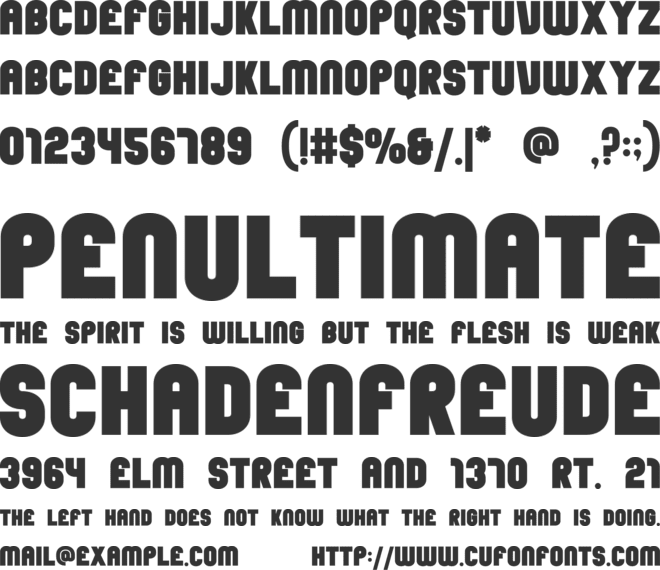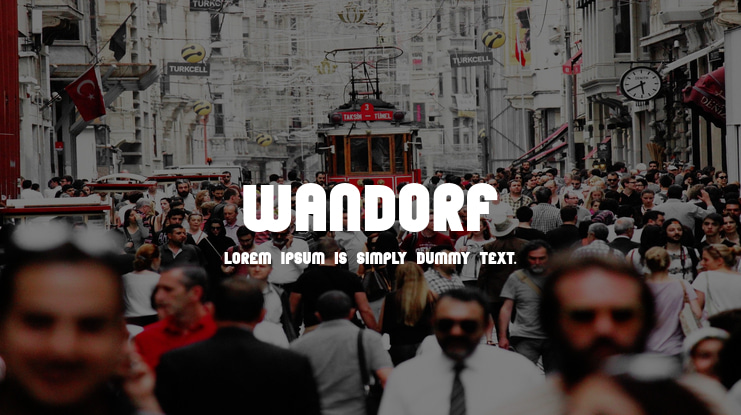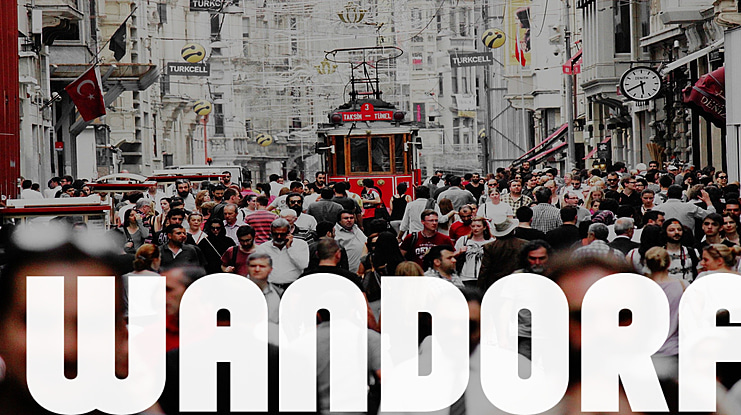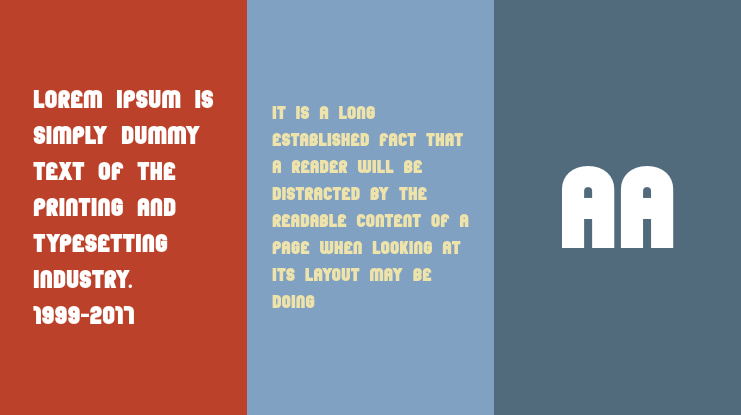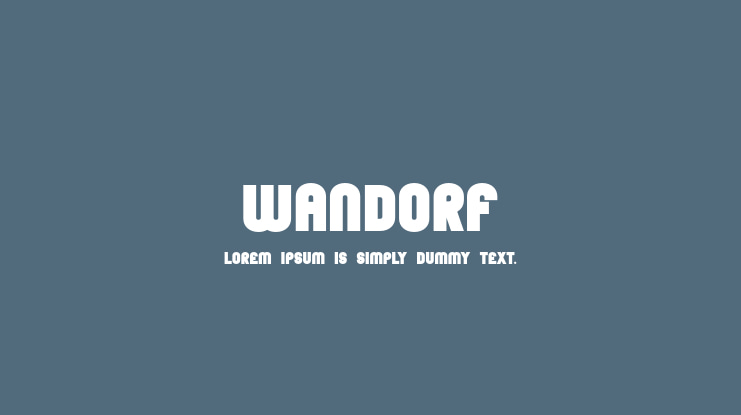
Wandorf Font
This is a Looks simple and charming sans serif font with a beautiful contrast. Made from font designer named BrandSemut. Best used as a display for headings, logos, branding, magazines, product packaging and invitations. Wandorf come with clean lines and smooth curves give any project an extra touch of class.